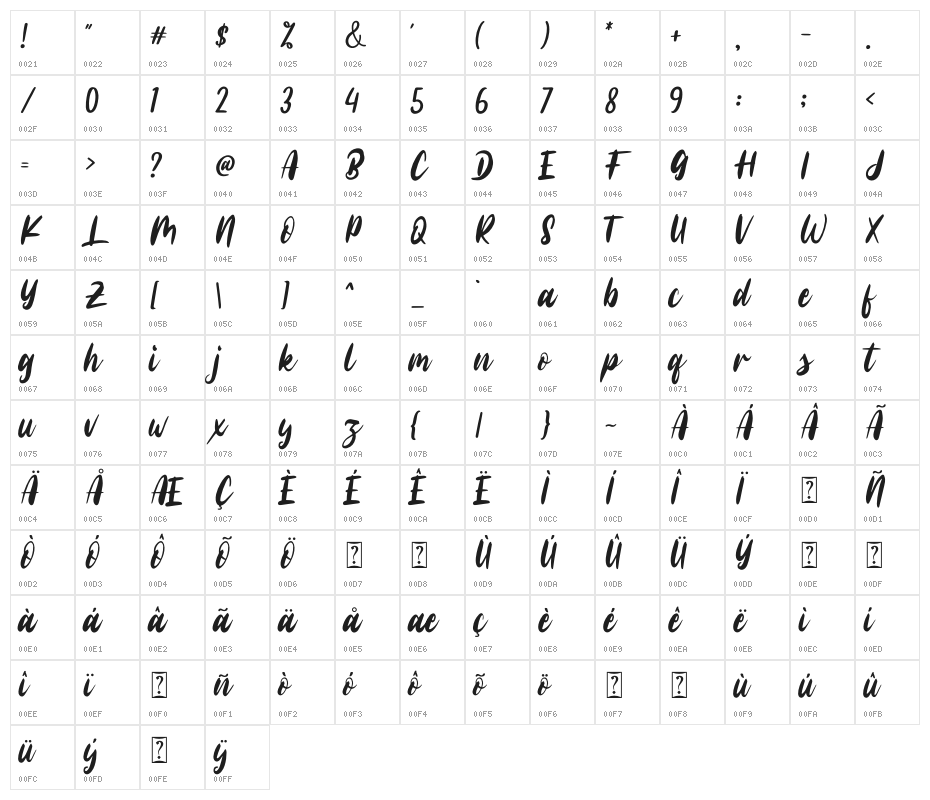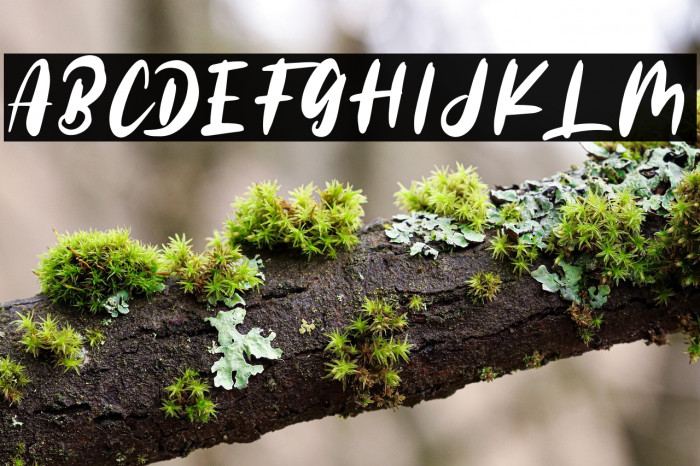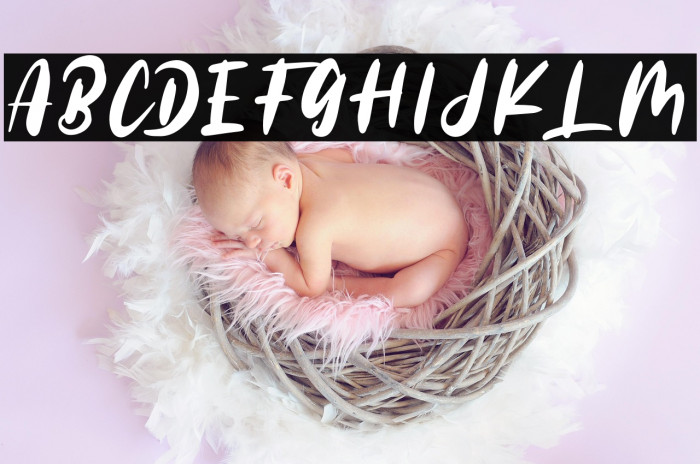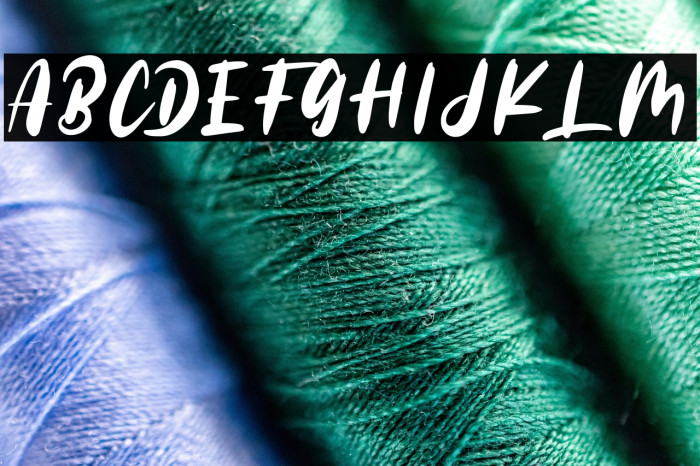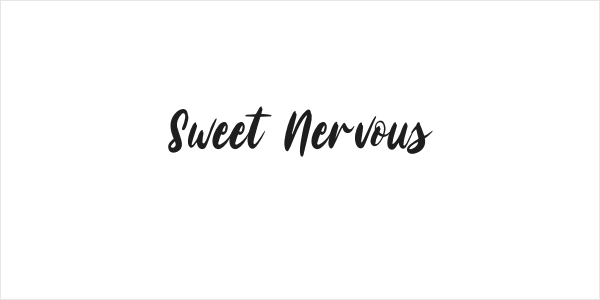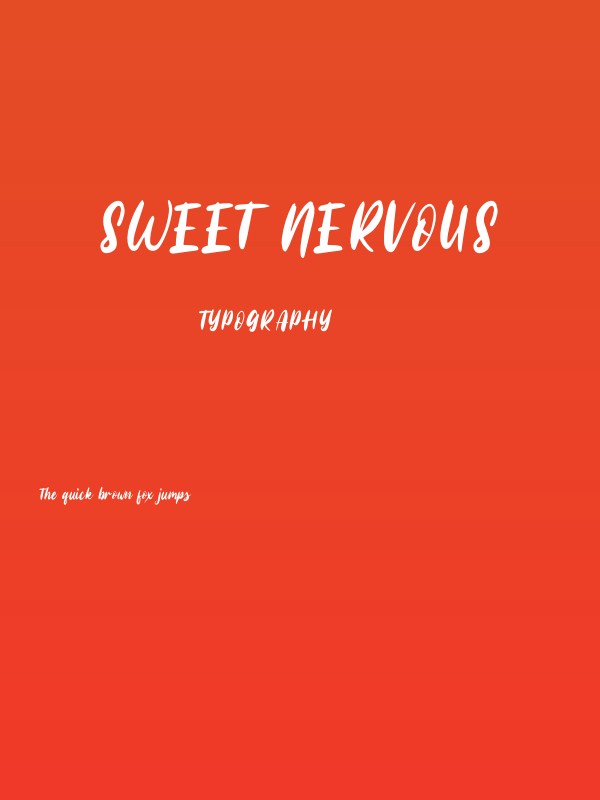
Sweet Nervous Font
Sweet Nervous Description
This font features a lively and energetic script style with a handwritten appearance. The letters are fluid and connected, giving a sense of movement and personality. The uppercase and lowercase letters maintain a consistent style, with smooth curves and a slightly slanted orientation. The numbers and special characters are designed to match the playful and dynamic feel of the alphabet. The overall look is bold and expressive, making it suitable for projects that require a personal touch or a sense of creativity.